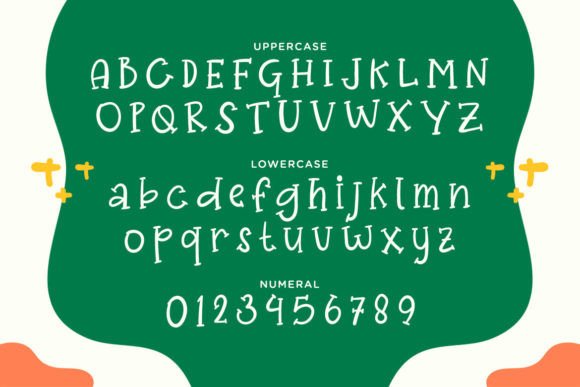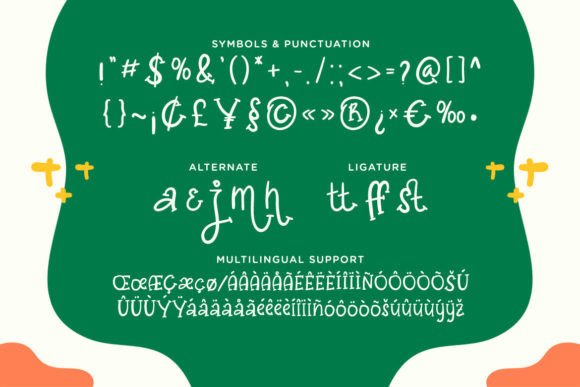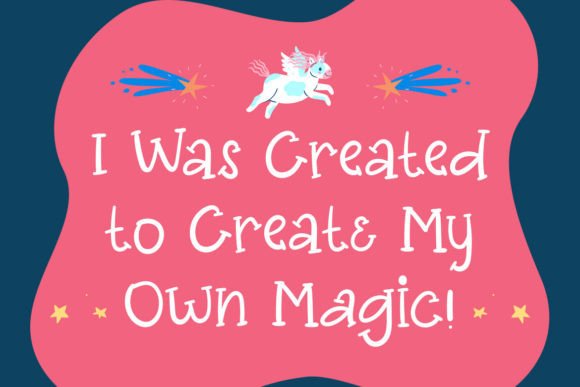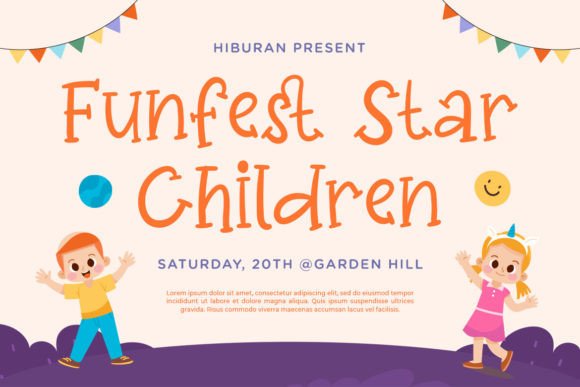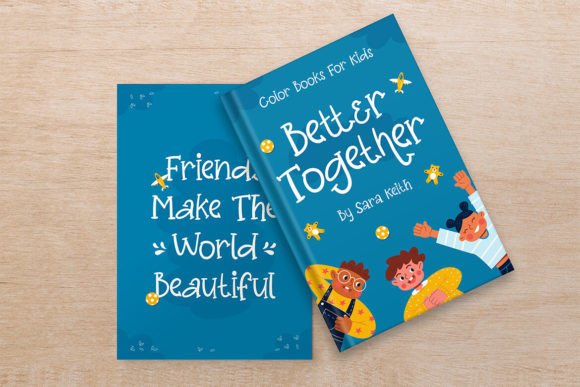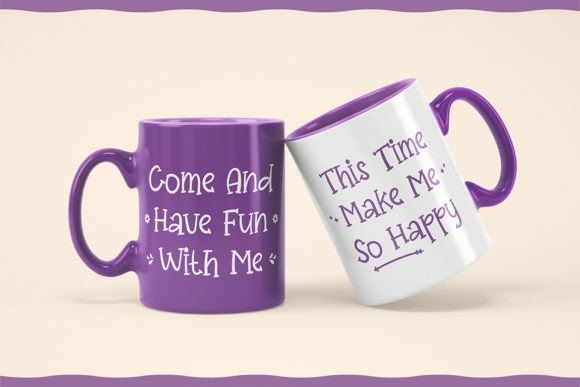
Introduction to Hiburan Font
As you sit at your desk, surrounded by scraps of paper, colorful pens, and a cup of steaming hot coffee, the excitement builds up – it’s time to create your holiday designs! But, have you ever found yourself stuck, searching for the perfect font to capture the festive spirit and bring joy to your creations?
Well, your search is over with the introduction of the “Hiburan Font” – a delightful holiday comic font that adds a touch of whimsy and humor to your designs. This high-quality design resource is perfect for any creative project, from greeting cards to party invitations, and even social media graphics. With its transparent background and vibrant personality, the Hiburan Font is sure to bring a smile to your face and make your designs stand out with its colorful charm.
As a designer, I’m always on the lookout for high-quality design resources to elevate my creative projects. The Hiburan Font caught my attention with its unique and stylish design. I was excited to dive in and see what it had to offer.
- ✨ Unique and stylish design that can add a touch of elegance to any project
- ✨ High quality and clear typography, making it perfect for print and digital designs
- ⚠️ Limited font variations and styles, which may limit its versatility
Use Hiburan Font with a transparent background to create a unique and eye-catching design. Experiment with different font sizes and styles to find the perfect combination for your project. Don’t be afraid to mix and match Hiburan Font with other design elements to create a cohesive look.
Hiburan Font is perfect for a variety of creative projects, including logos, social media graphics, and website headers. Use it to add a touch of personality to your branding or to create a bold and eye-catching design element.